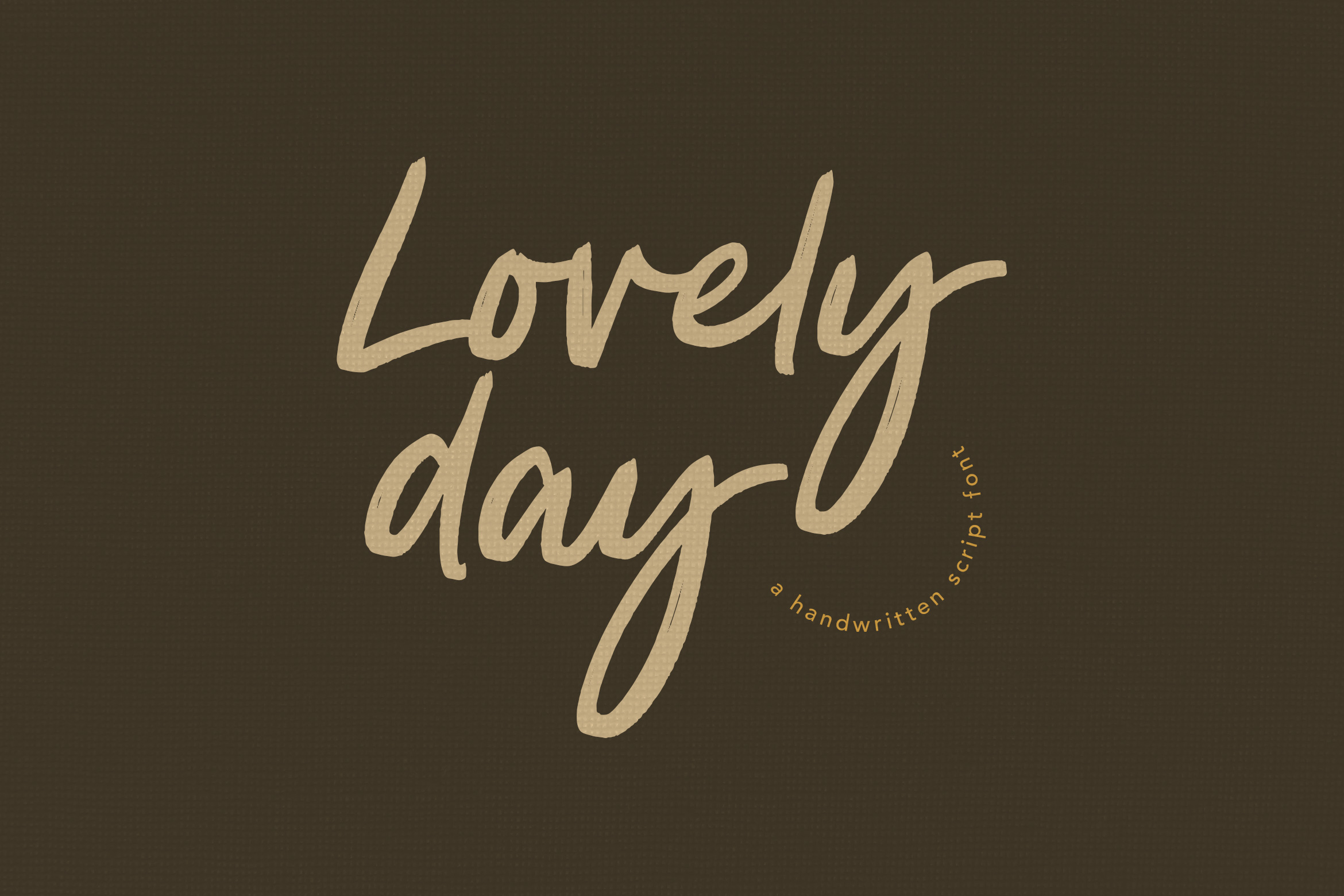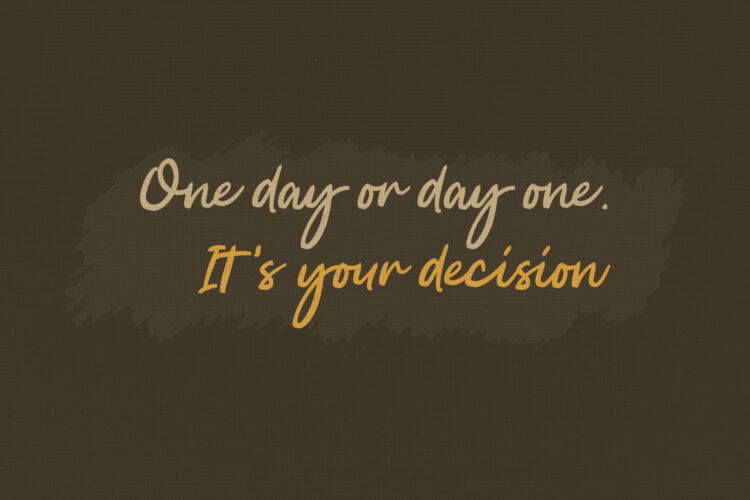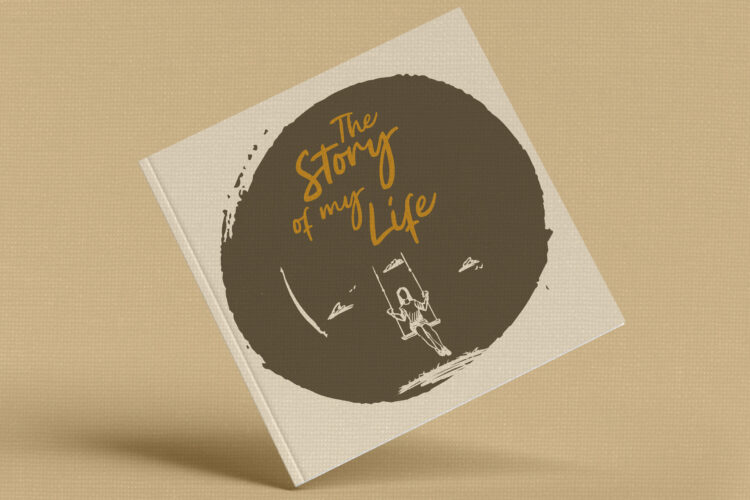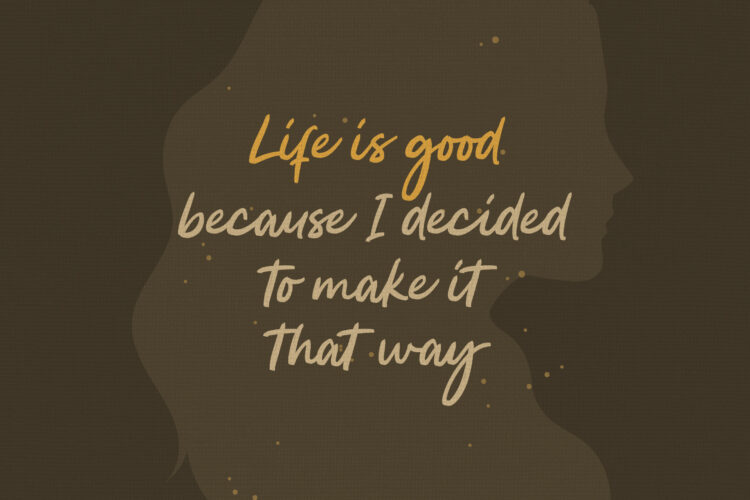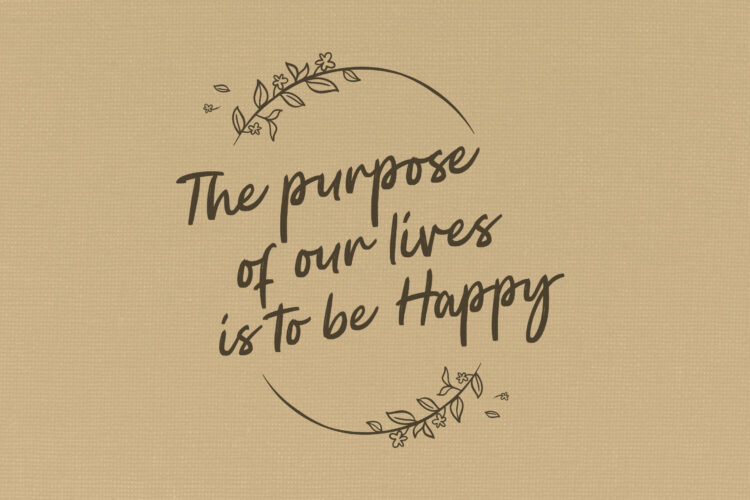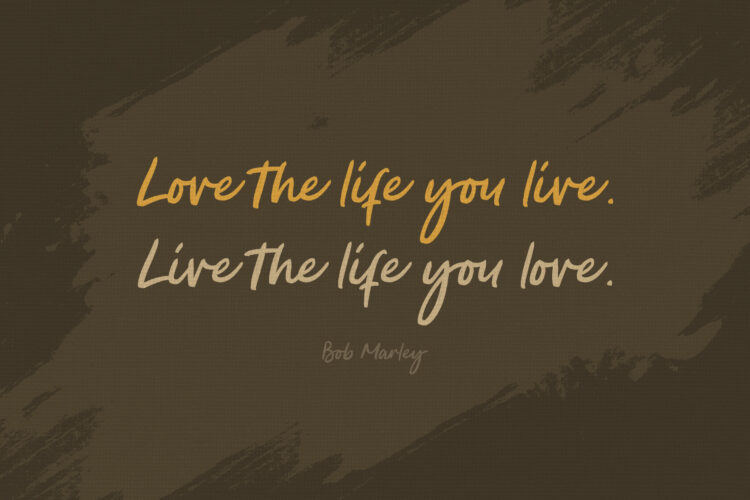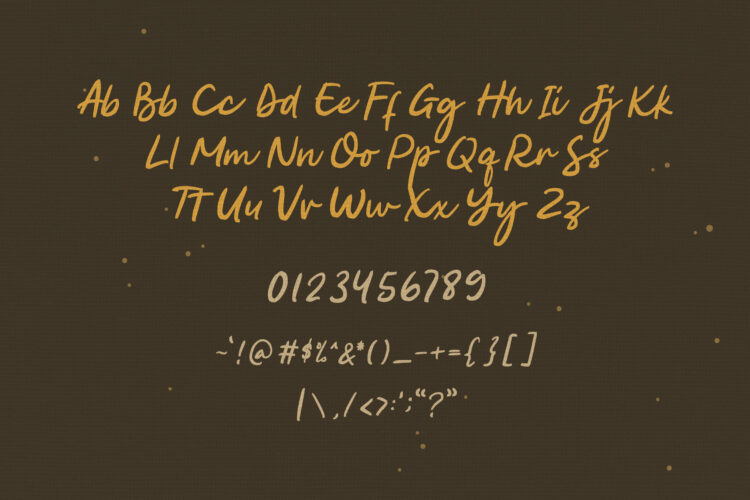
What’s more lovely than a Lovely Day, a stylish handwritten font that will brighten your day and your needs of font because Lovely Day Stylish Handwritten font is suitable for branding project, social media posts, advertisements, quote text, label, watermark, logos, signature, product packaging, product design, fashion, boutique and many other creative projects, online or offline. It’s also recommended for beauty-themed or stylish text overlay to any background image.
You will get a full set of lowercase and uppercase alphabetical letters that looks modern and simple but still authentic. Complete your creative works with Lovely Day to make them more lovely, beautiful, elegant yet simple and stunning.
Lovely Day-Stylish Handwritten Font